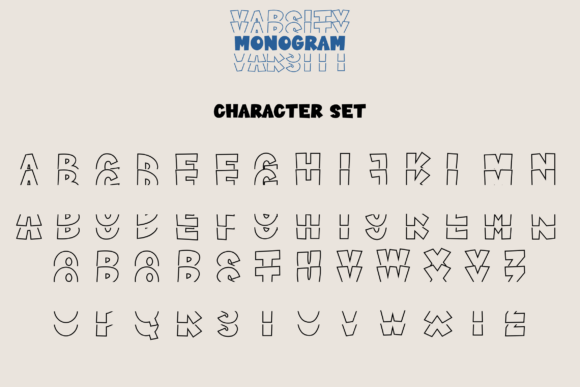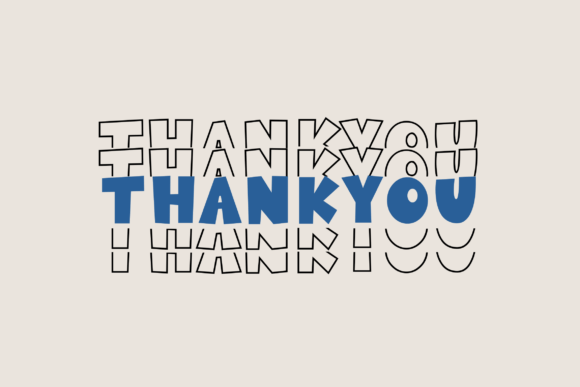
Varsity Monogram Stacked Font
Introducing the Varsity Monogram Stacked Font – a power-packed, robust typeface conjuring up images of classical varsity and collegiate lettering. Forged in the cauldron of athletic vigor, it’s tailored to make sports team branding, monograms, and academic logos invigorate with the spirit of competition. Characterized by a stacked structure, its solid layout makes the perfect backbone for eye-catching monograms. Position this on canvas for any project, be it sports apparel, trophies or posters, and witness a dynamic alchemy of power and elegance. With Varsity Monogram Stacked Font, add a bold stroke of athletic charm to your designs.